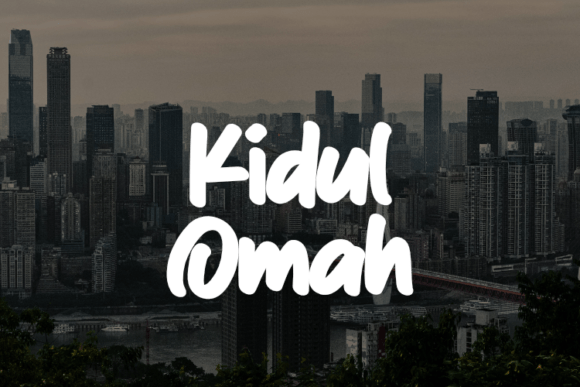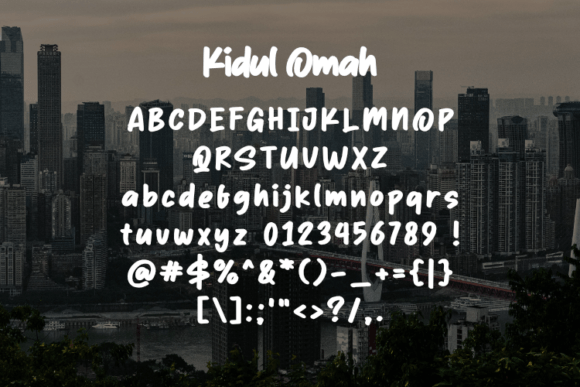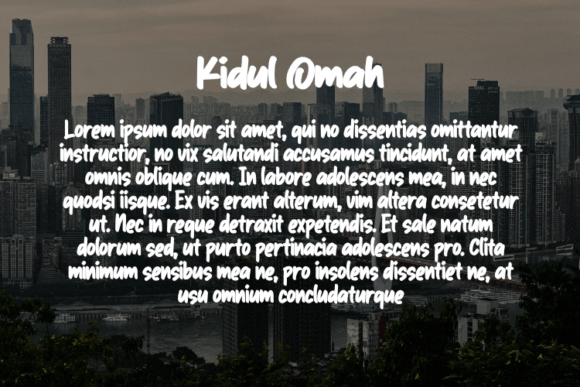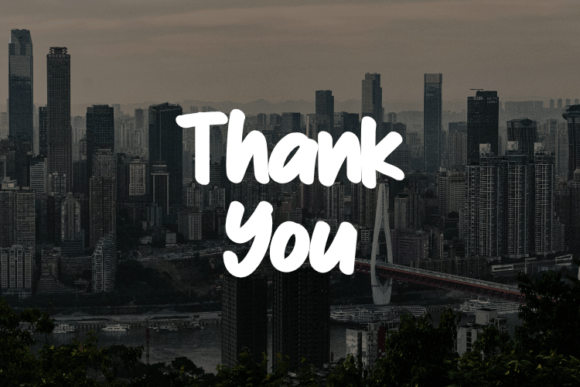
Kidul Omah Font: A Playful Display Font for Creative Projects
About the Kidul Omah Font
Elevate your designs with Kidul Omah Font, a font that combines sophistication with readability. This font is a perfect choice for a variety of your design projects, from trendy apparel and t-shirts to other creative products. Designed with versatility in mind, this font offers an attractive and easy-to-read look, so your message comes across clearly and effectively.
Kidul Omah’s versatility shines in headlines, logos, and short-form text on packaging or posters. Its friendly yet modern feel makes it ideal for brands targeting a youthful or active audience. Avoid using it for body text or lengthy paragraphs; its slightly condensed letterforms can hinder readability in large blocks of text.
For a balanced aesthetic, pair Kidul Omah with a clean sans-serif like Open Sans for body copy, or a playful script font like Pacifico for a more whimsical feel. A geometric sans-serif, such as Montserrat, would offer a sophisticated contrast, highlighting Kidul Omah’s energetic character.
The font projects a bold, friendly personality, suggesting approachability and a sense of playful modernity. It’s a strong choice for projects emphasizing energy and dynamism.
Kidul Omah Font Usage Examples
Kidul Omah Font Example